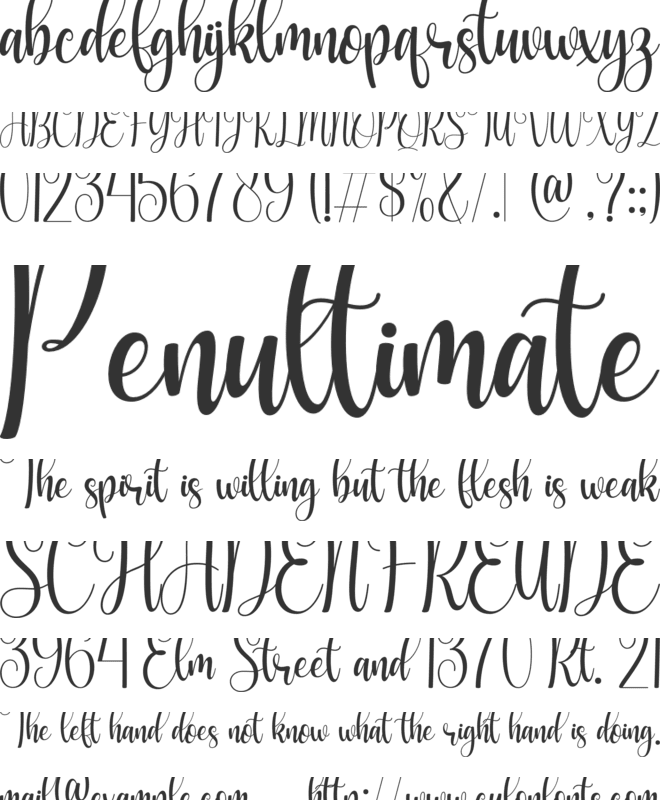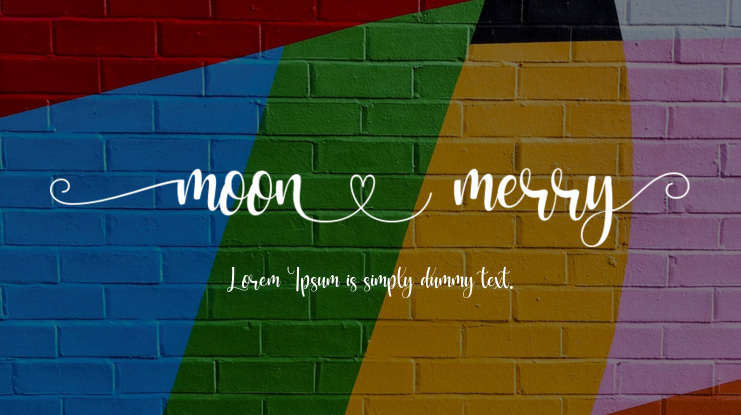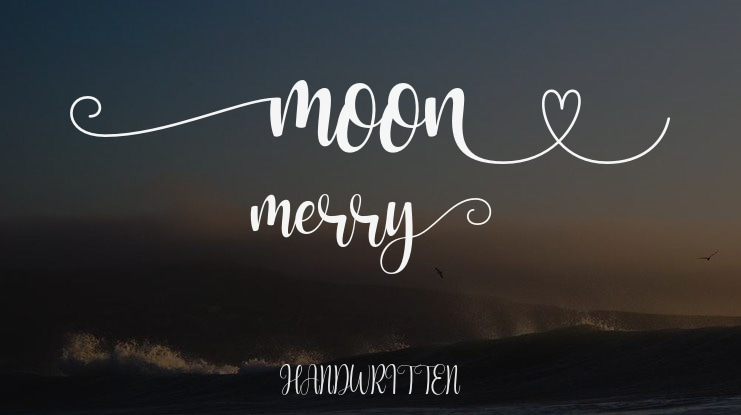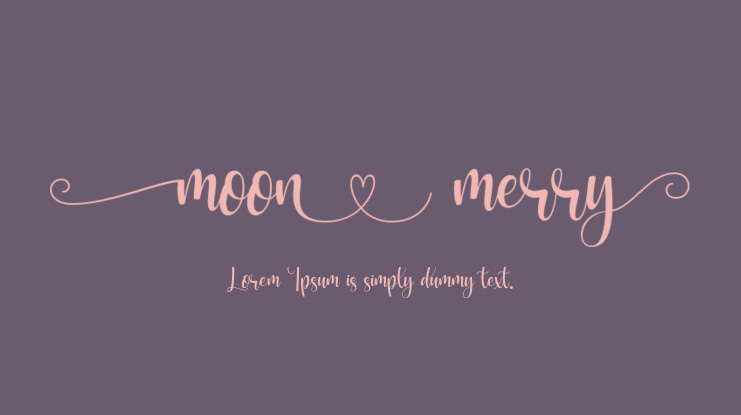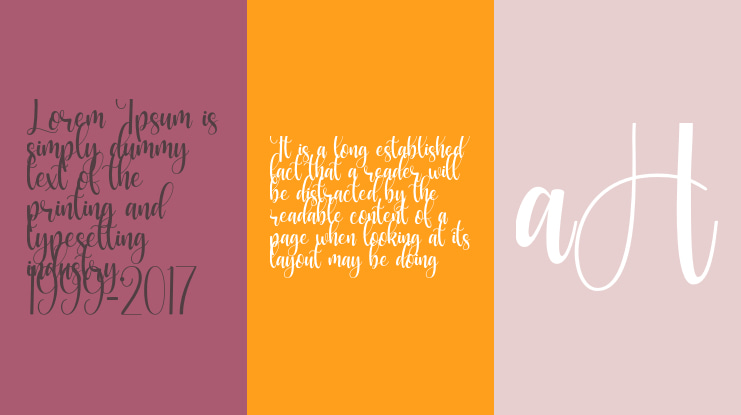
Moon Merry Font
Moon Merry is an elegant and delightful script font that features gracefully dancing characters along the baseline. It will bring a touch of luxury to any design project you desire to create. This font is PUA encoded, allowing you to effortlessly access the extensive collection of stunning glyphs and ligatures it offers!